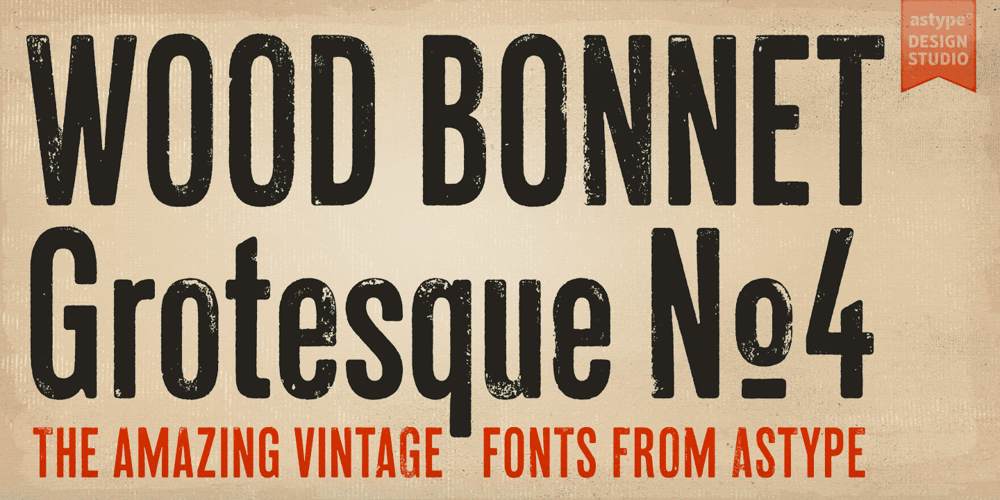
Wood Bonnet Grotesque No.4
Wood Bonnet Grotesque No.4 font
Wood Bonnet Grotesque No.4 Font Family was designed by Andreas Seidel and published by astype. Wood Bonnet Grotesque No.4 contains 2 styles and family package options. After release of Wood Bonnet Antique No.7 some of my clients asked for a sans serif version. So I printed my second batch of old wood type. I transferred these wood type into a digital font and tried to preserve the warm vintage look. » pdf specimen « The font offers up to four glyph variations of all the Latin base letters, figures and some additional letters – It has an build in letter randomizer. Please check you have turned on contextual alternates in your application. If you prefer a more common look and need more weights or to use the font in smaller text sizes I have done clean and sharp font family called Bonnet Grotesque Nr. It’s the preferred version for all the usages on websites, apps or ebooks. Have fun!